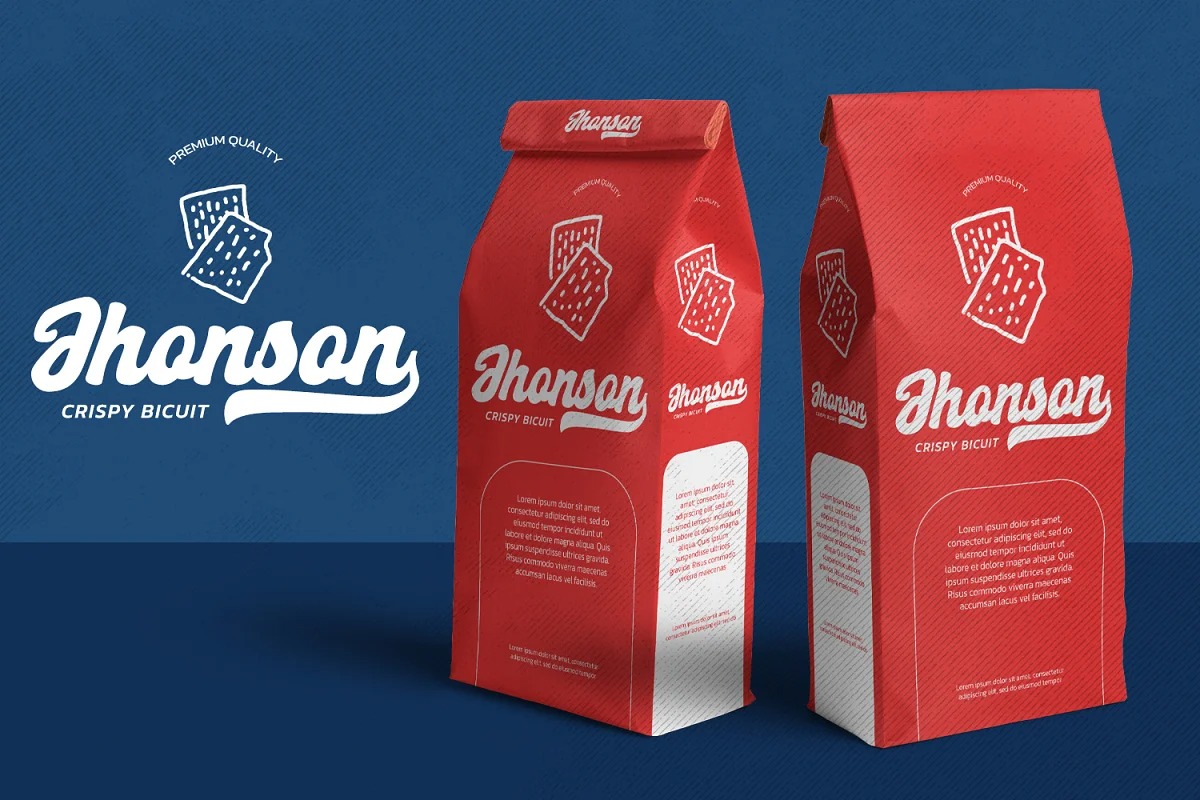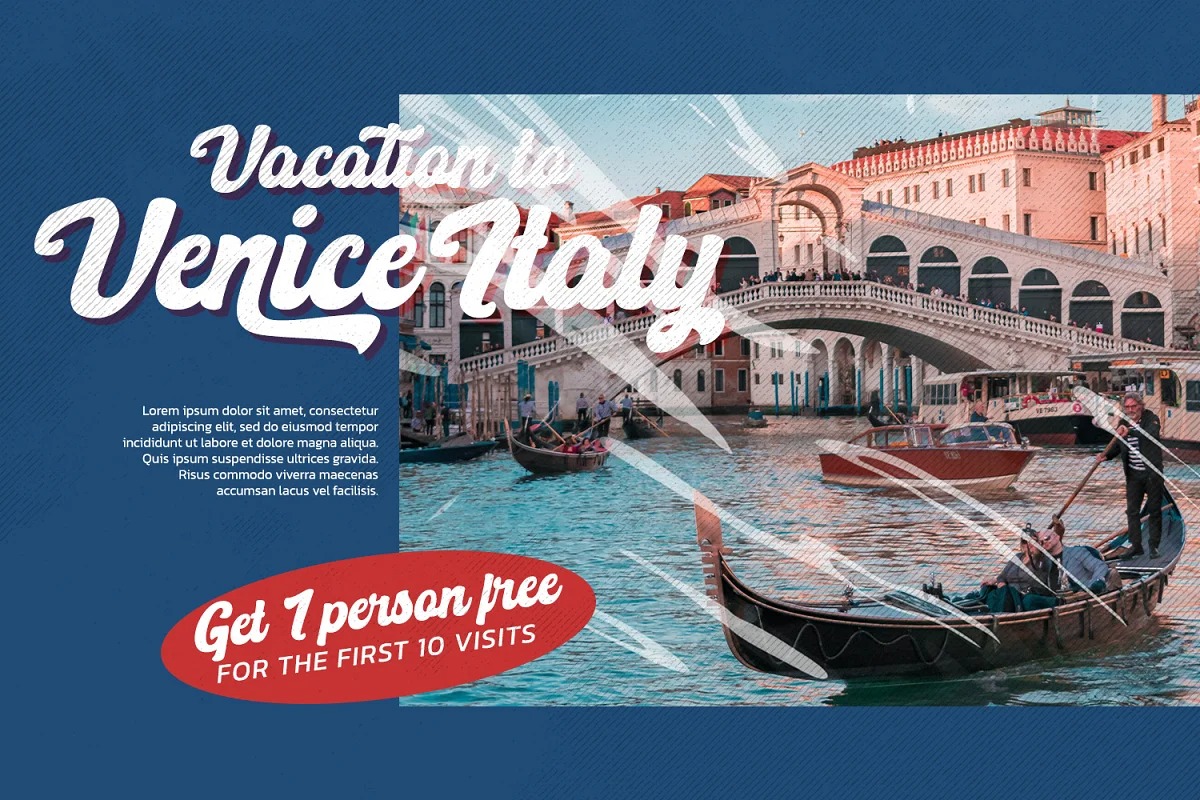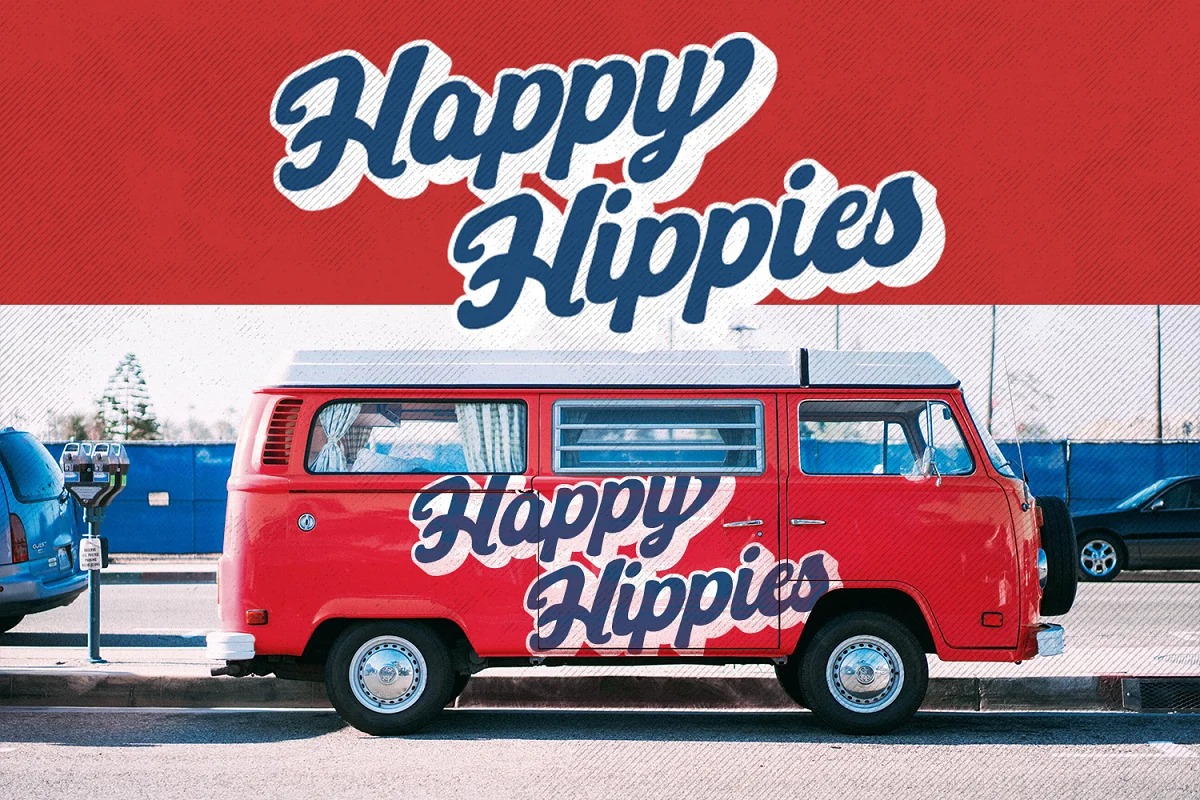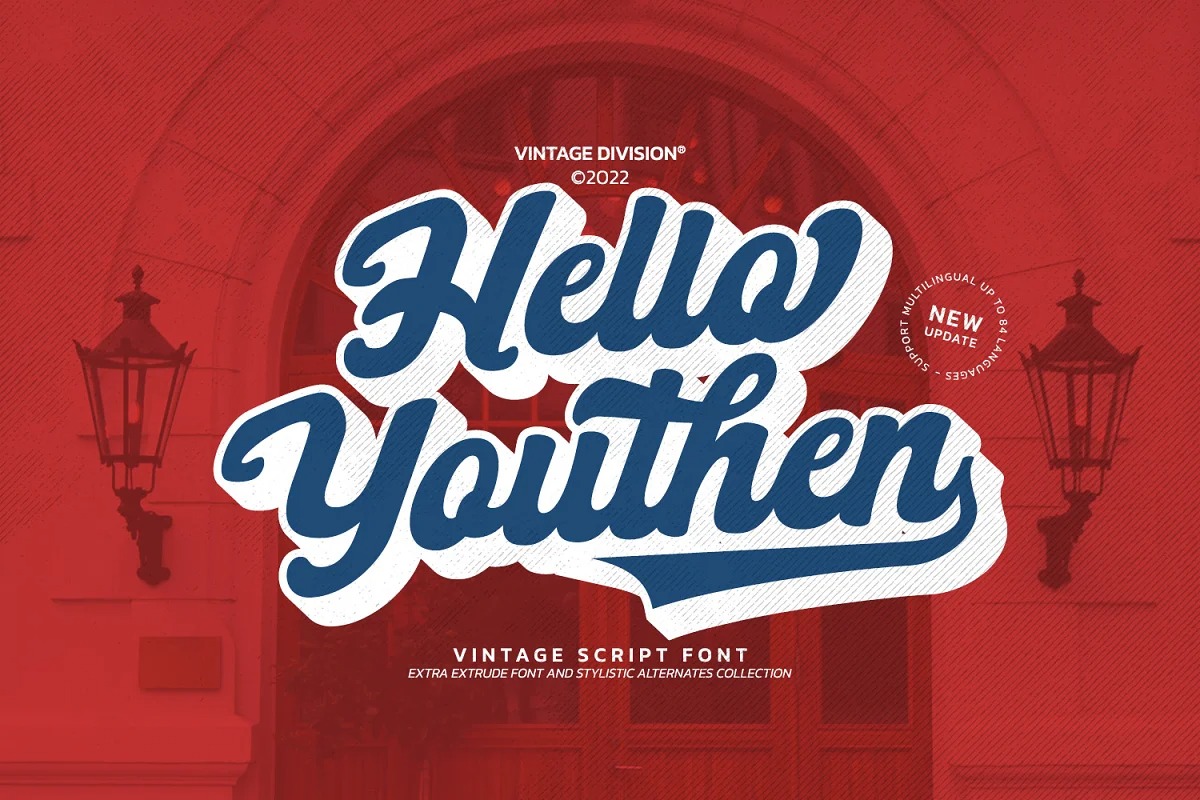
Hello Youthen Script Font
This is a beautiful script font suitable for modern design, branding on social media. This font features thick and angular letters that easy on the eyes and nice to look while it’s also easy to read. Hello Youthen becomes more special with extruding version option. Well suited to titles, poster designs, branding, logos, and many more.